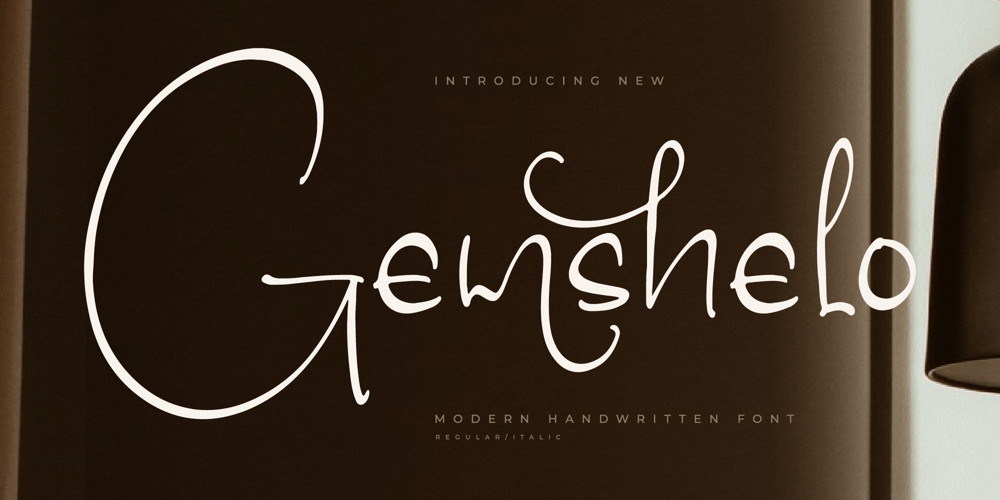
Gemshelo Font Family was designed by Heru Utama Putra and published by Letterena Studios. Gemshelo contains 2 styles and family package options. Gemshelo is a modern handwritten signature font that encapsulates elegance and individuality. Its fluid strokes and carefully crafted letterforms emulate the authenticity of a personalized signature. Ideal for projects requiring a touch of sophistication, Gemshelo adds a distinctive and stylish flourish to your creative expression.